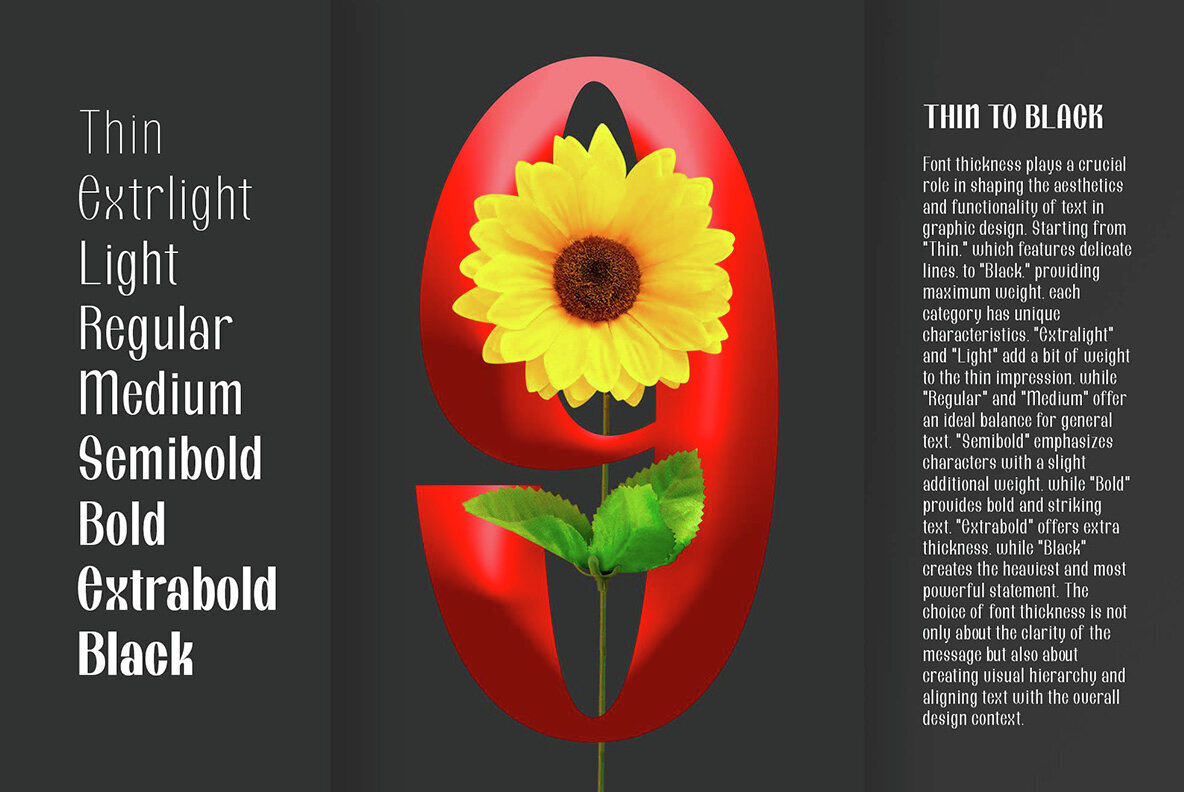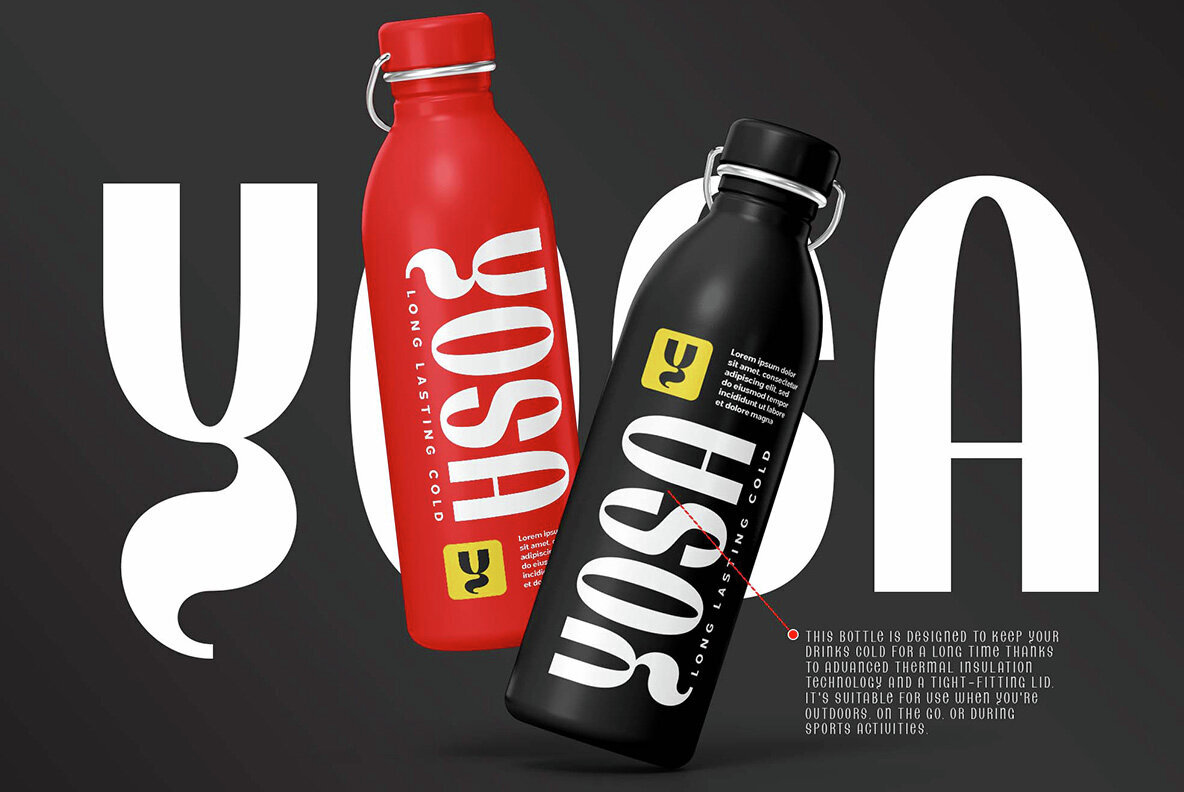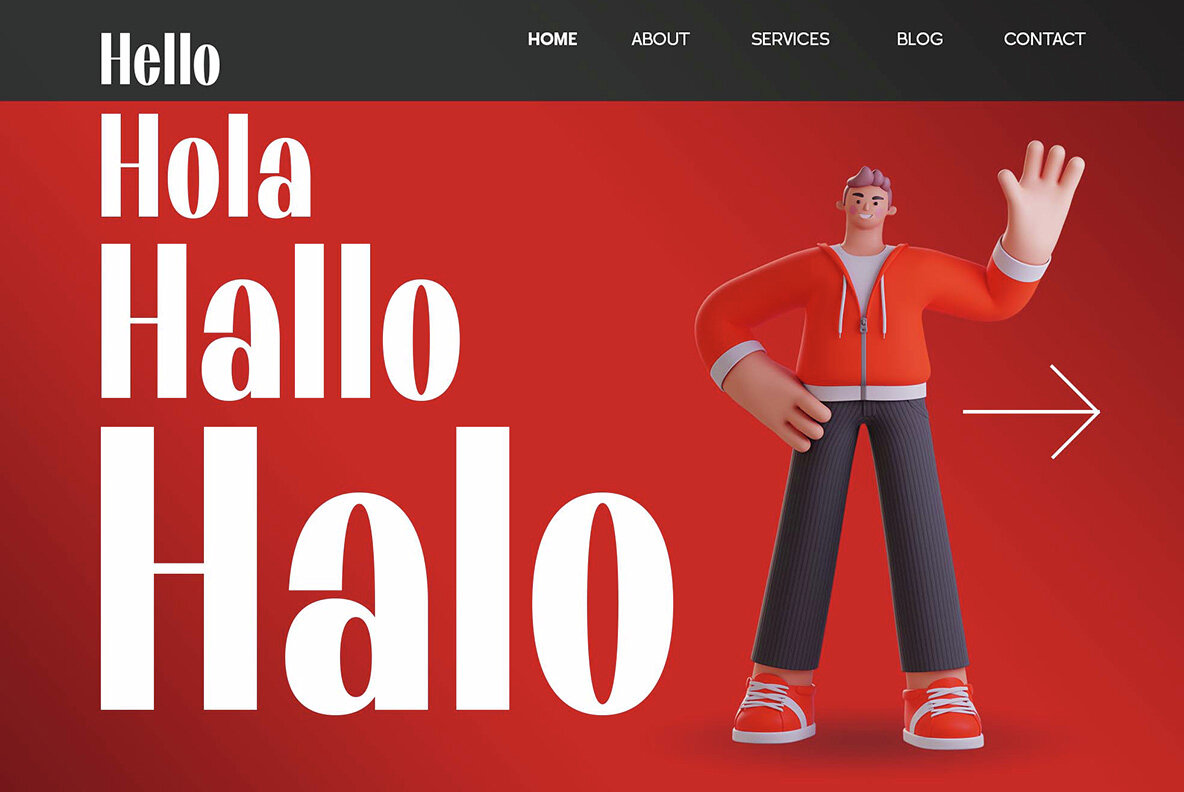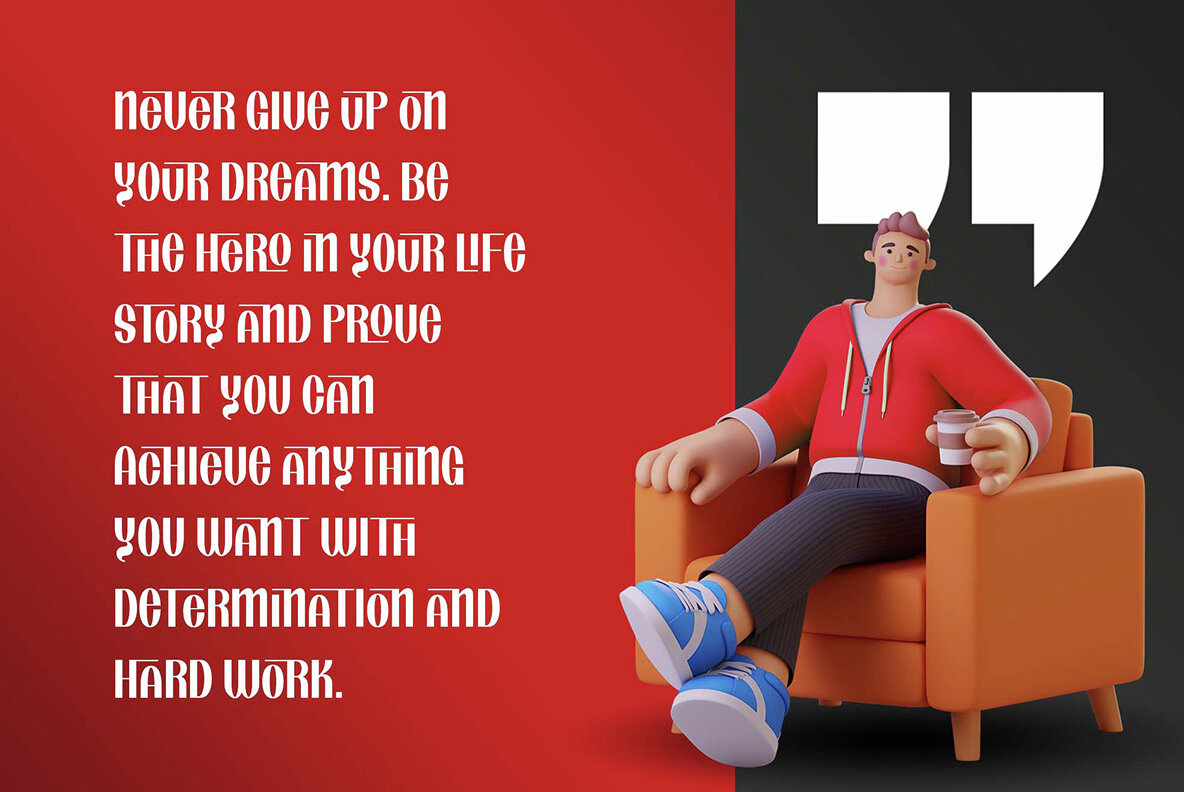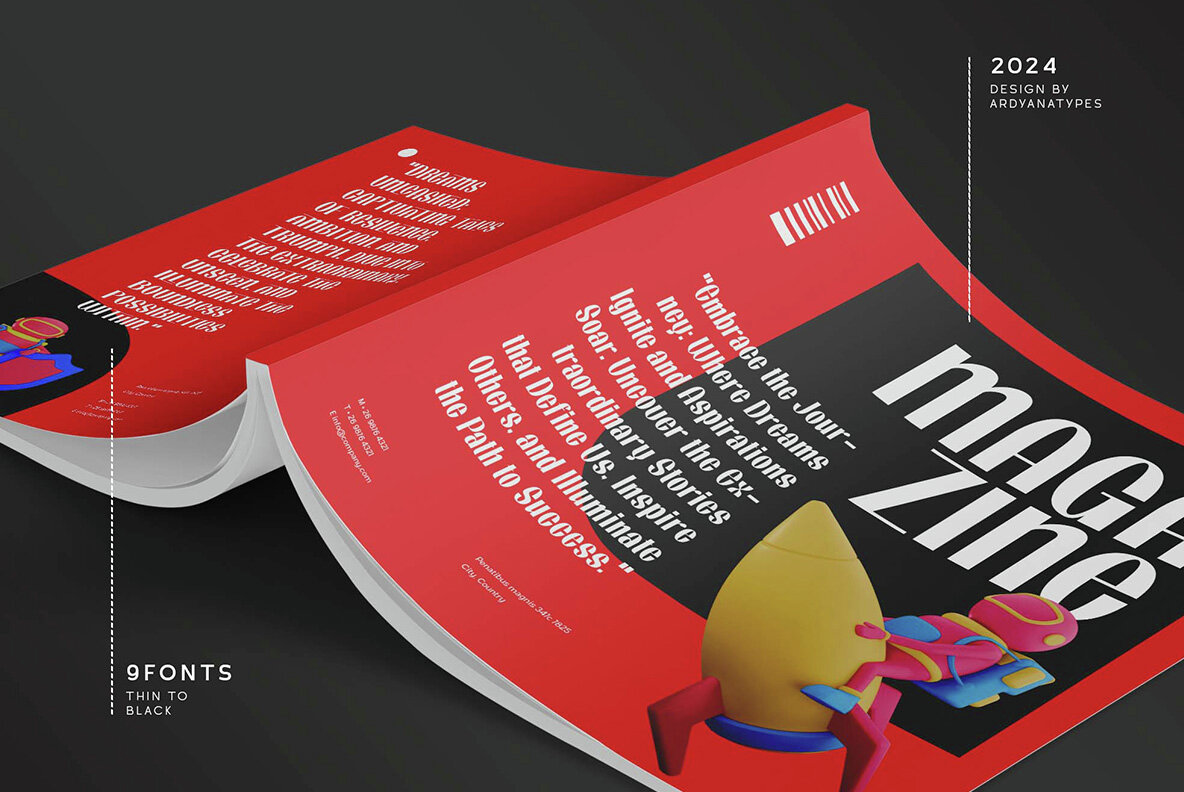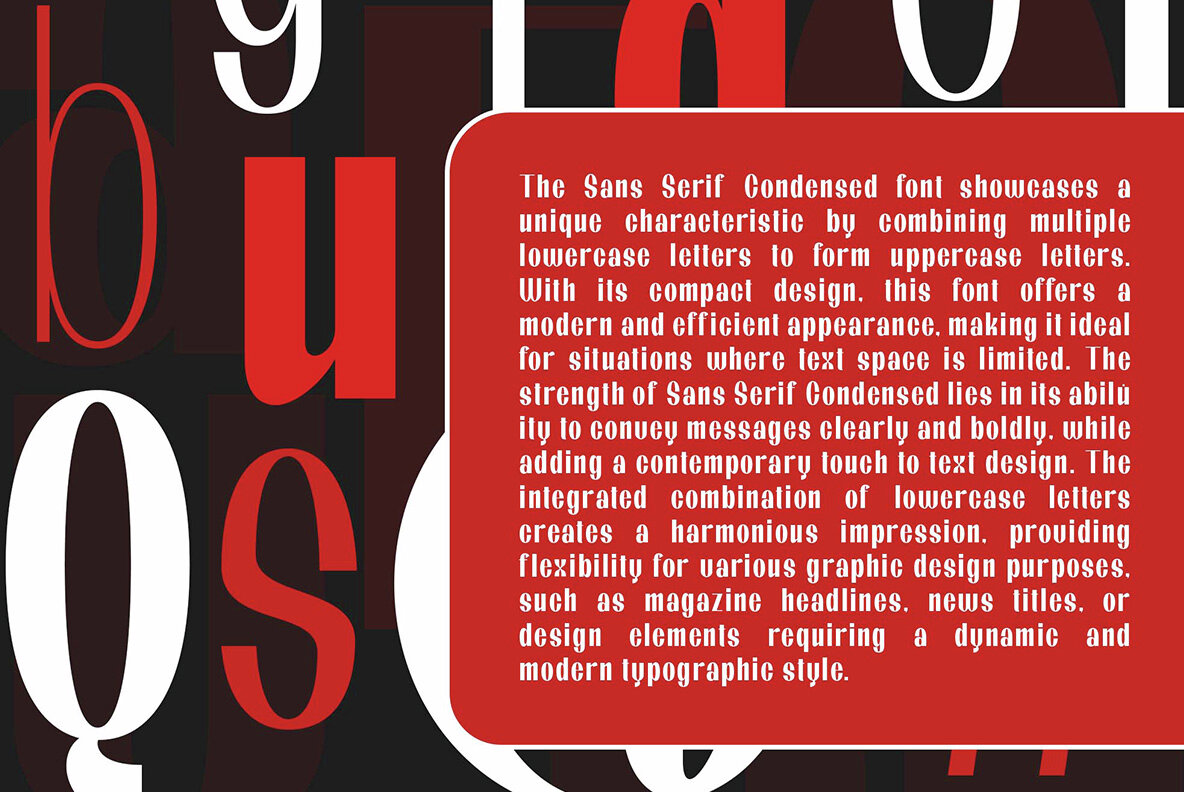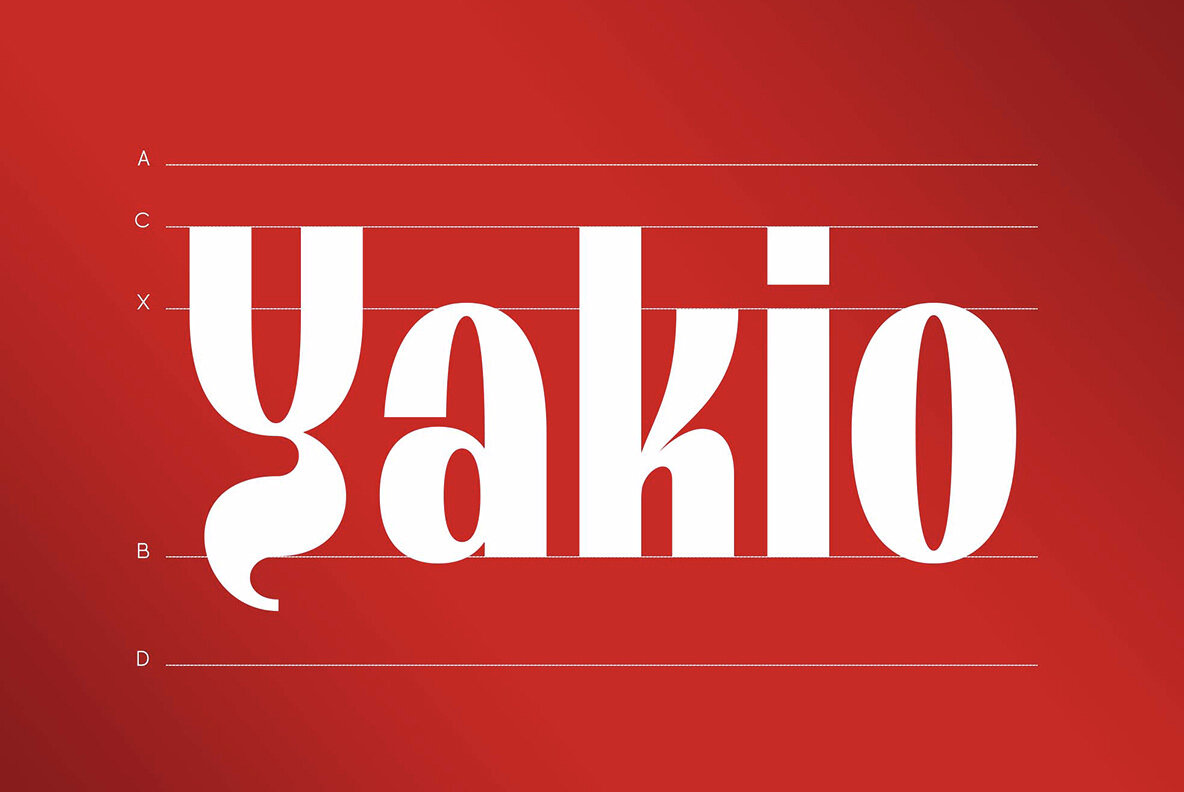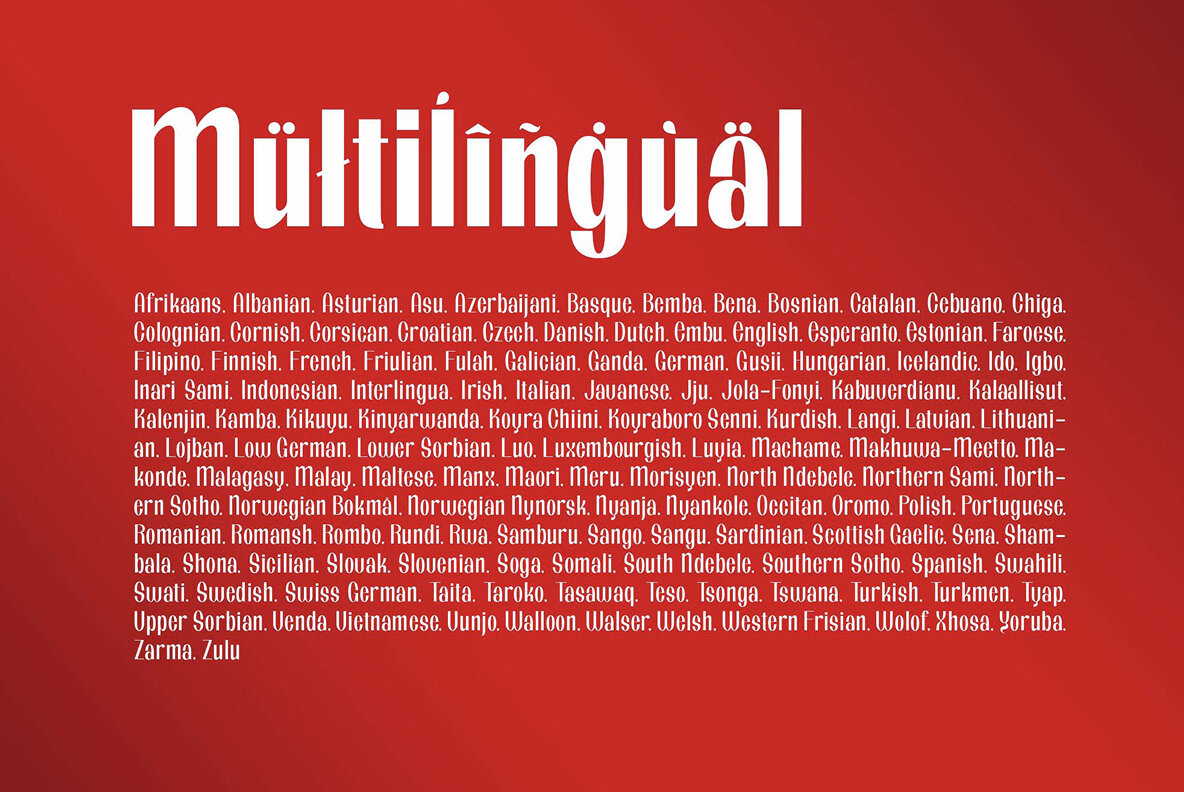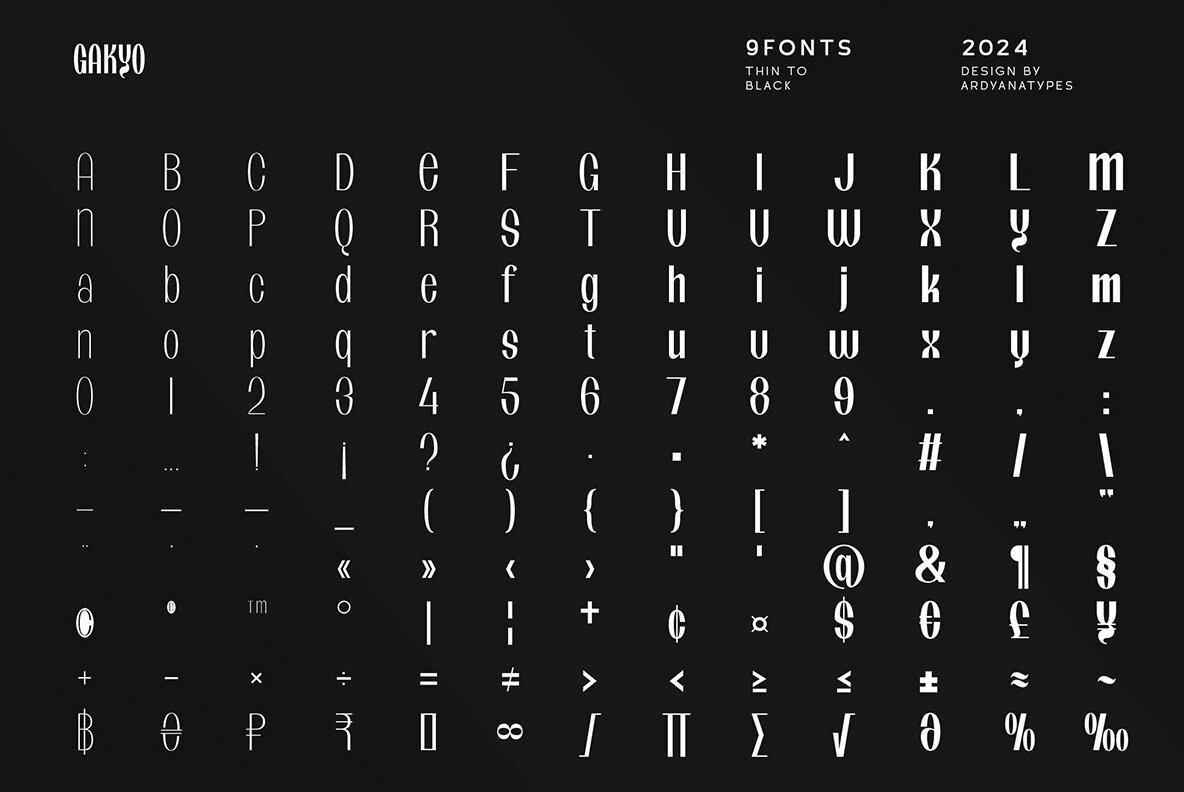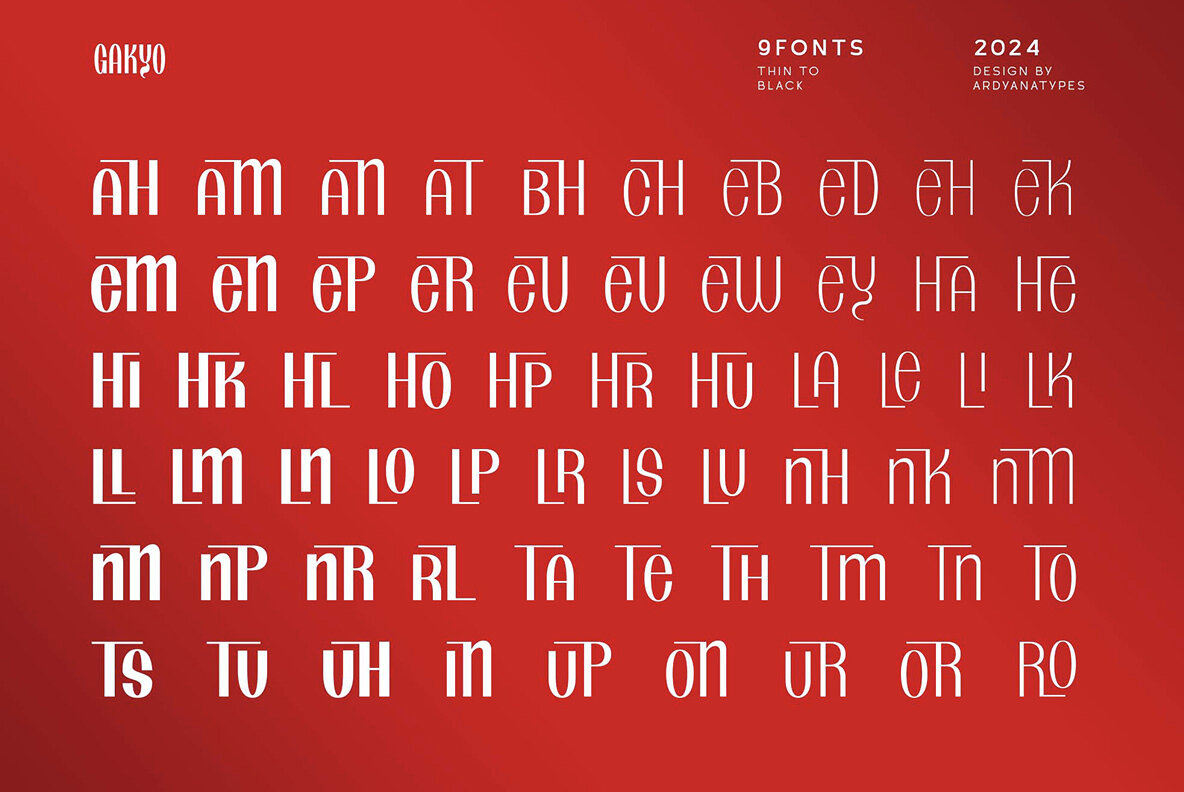
Gakyo Font
Gakyo Elegant Serif is an exceptionally unique, robust, and assertive typeface. Designed with a modern flair, this typeface is crafted to impart an elegant touch to every design you create, making it suitable for various design themes. Gakyo - Elegant Serif offers 9 thickness variants, providing ample choices for every design requirement. With comprehensive OpenType features, including ligatures and alternate characters, Gakyo - Elegant Serif opens up further possibilities to explore its uniqueness and creativity in usage. The diversity of these features allows designers to customize text engagingly, adding distinctive touches to every project. Moreover, Gakyo-Elegant Serif's support of various languages makes it easy to use across different countries. This typeface is intended explicitly for graphic designers, book publishers, and film studios, offering an elegant and functional typographic solution for various design needs. Gakyo - Elegant Serif introduces a new dimension to your design experience, making each visual creation more impressive and professional. Features